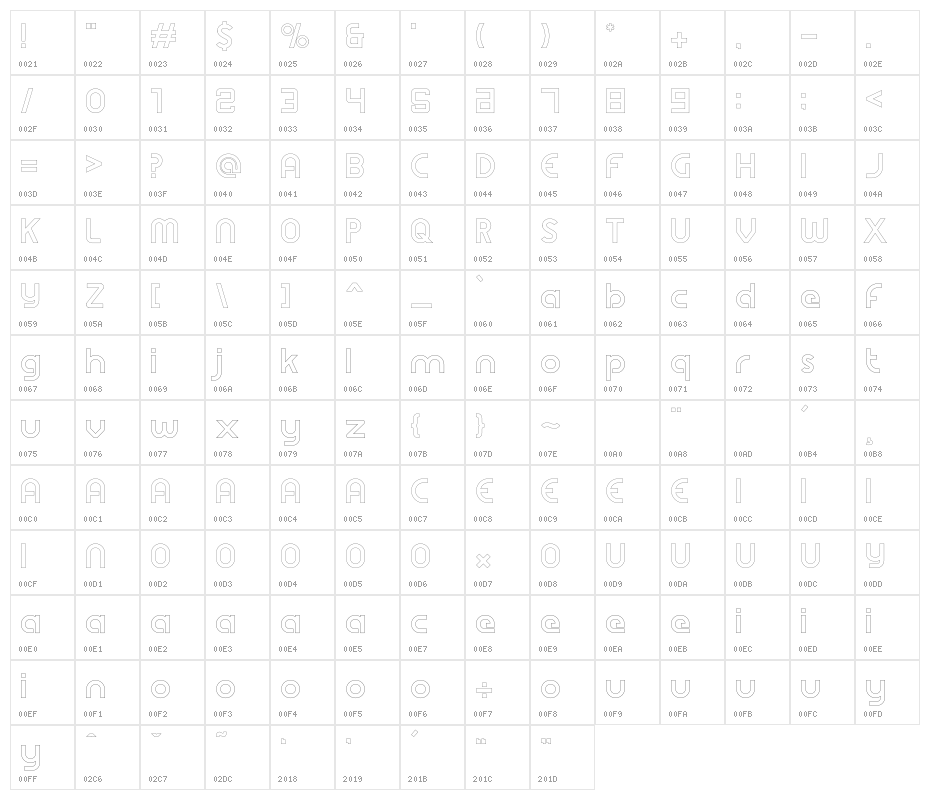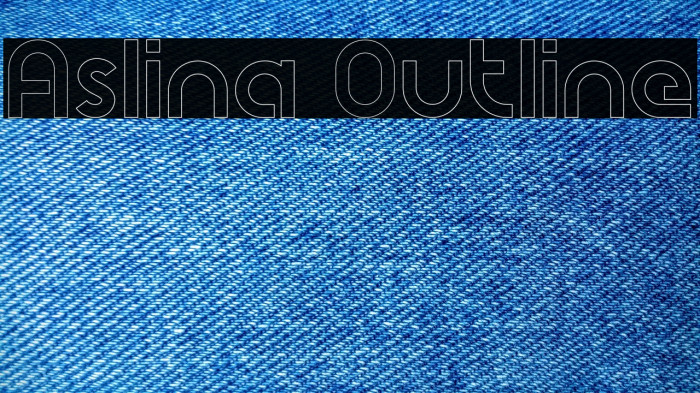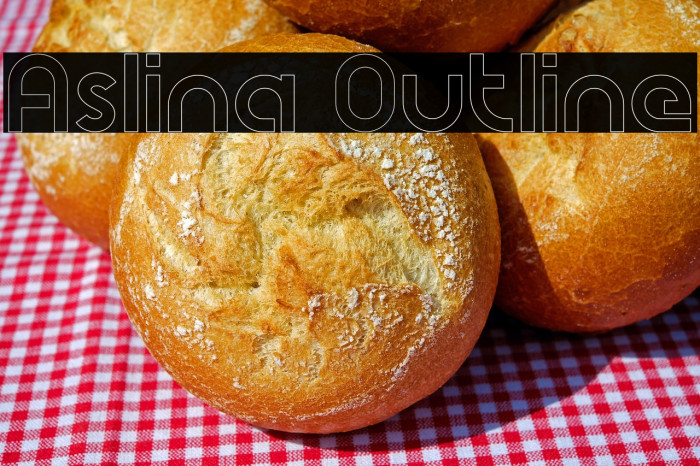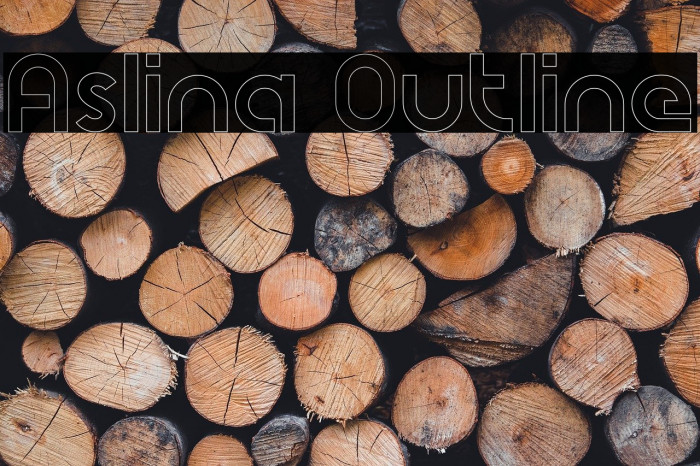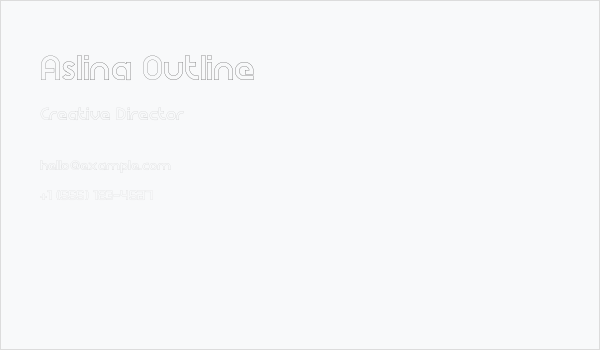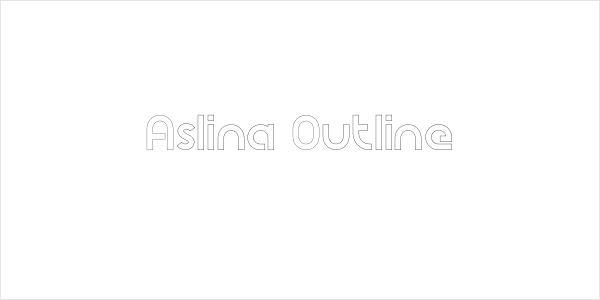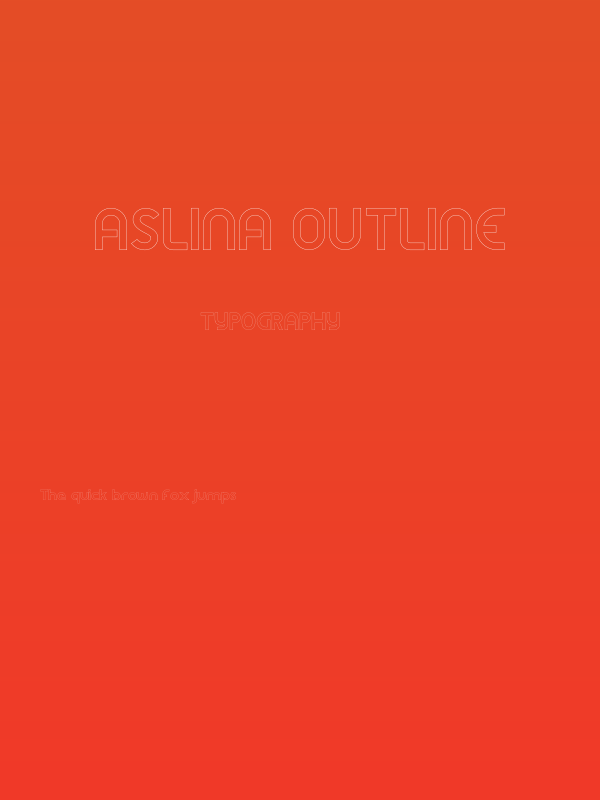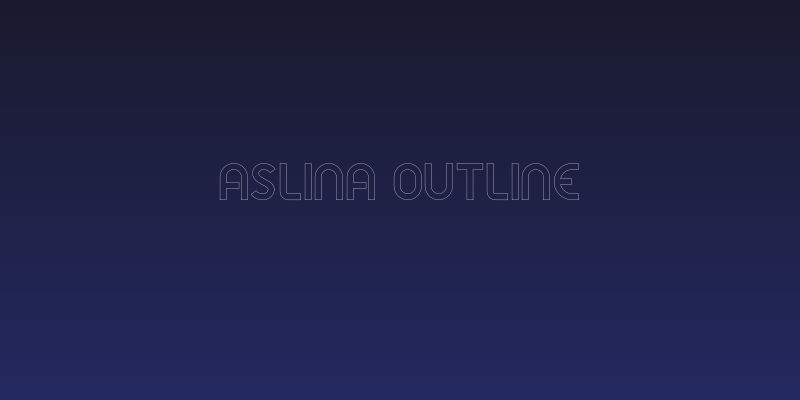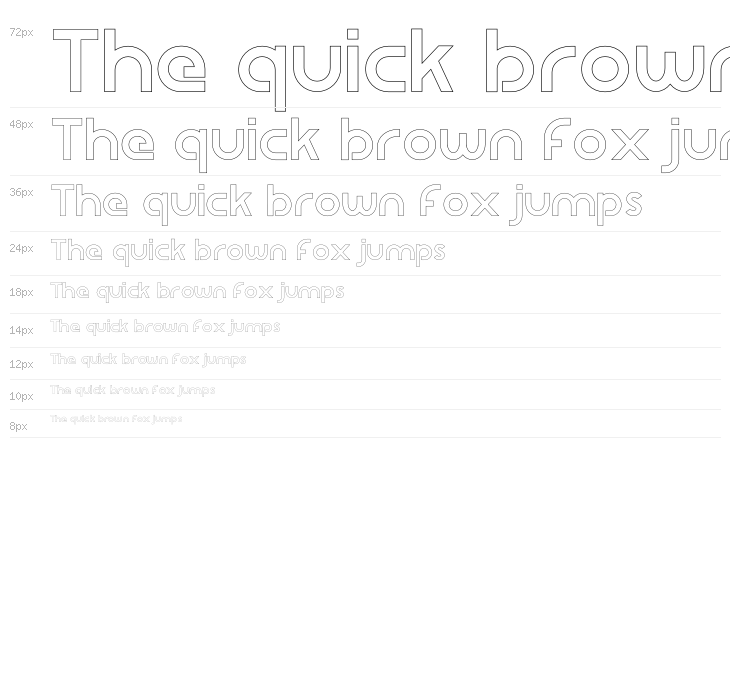
Aslina Outline Font
Aslina Outline Description
This font features a clean, geometric outline style that gives it a modern and minimalist appearance. The characters are constructed with consistent line thickness, creating a uniform and balanced look. The uppercase and lowercase letters maintain a harmonious design, with rounded edges that soften the overall aesthetic. The numerals and special characters are crafted to match the sleek and contemporary feel of the alphabet. This font's simplicity and clarity make it versatile for various design applications.